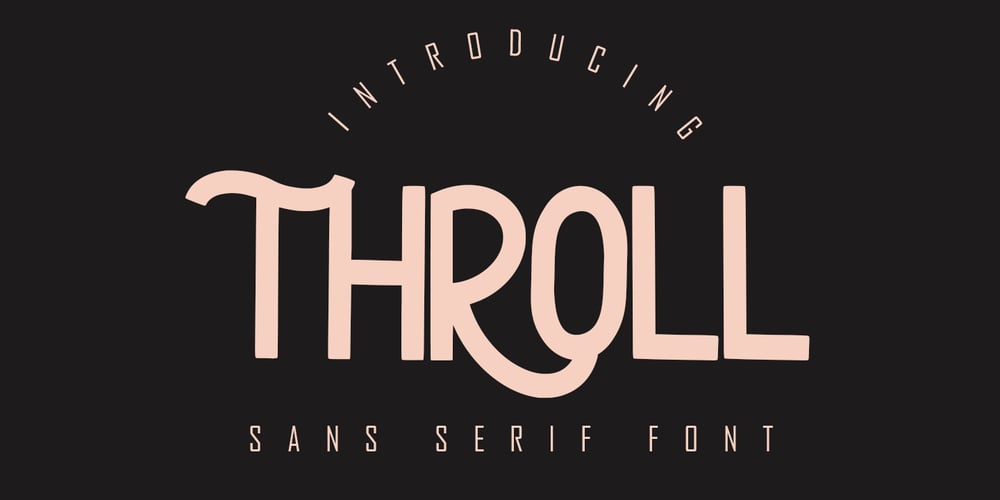
Throll
Throll font
Throll Font Family was designed by Irfan Mahmudin and published by Skiiller Studio. Throll contains 1 styles and family package options. THROLL Modern sans serif font. It has a elegant, classy look and modern. It’s a great font for fashion, apparel projects, signature, album cover, logo, branding, magazine, social media, & advertisements.What’s include: Stylistic alternate PUA Encoded Characters – Fully accessible without additional design software. Basic Latin Language Support (AÀÁÂÃÄÅCÇDÐEÈÉÊËIÌÍÎÏÑOØÒÓÔÕÖUÙÜÚÛWYÝŸÆß )